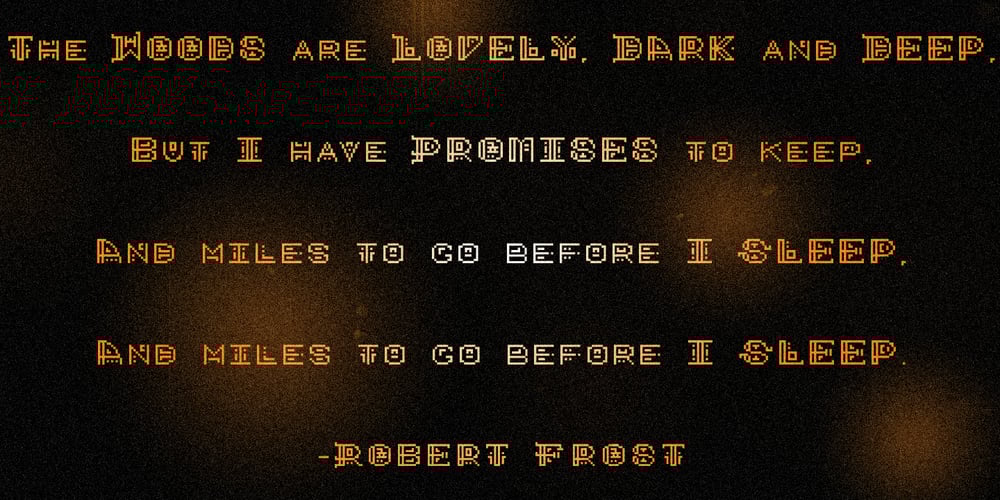
Lost Arcade
Lost Arcade font
Lost Arcade Font Family was designed by Chris Rogers and published by Chris Rogers Fonts and Symbols. Lost Arcade contains 5 styles and family package options. Are you a game developer, retro enthusiast or lover of pixel art? Ever had trouble tracking down an 8-bit display font that’s classy, coherent and truly complete? This type enthusiast and veteran pixel artist once had the same problem, and cut no corners to solve it. Lost Arcade features four styles, a myriad of special characters, broad language support and an accompanying symbol font with 64 pixel art symbols. For the purists out there, each square is proportional to its neighbor.